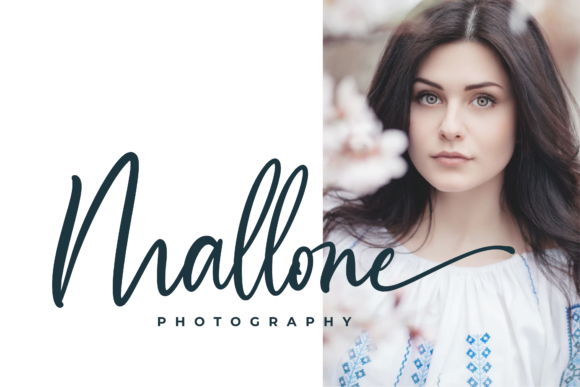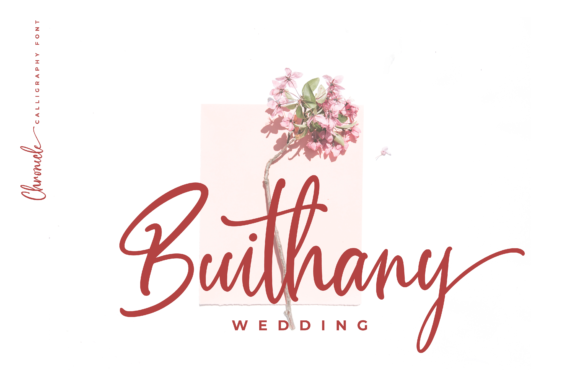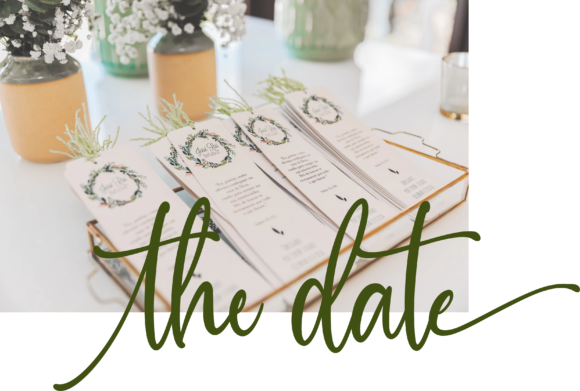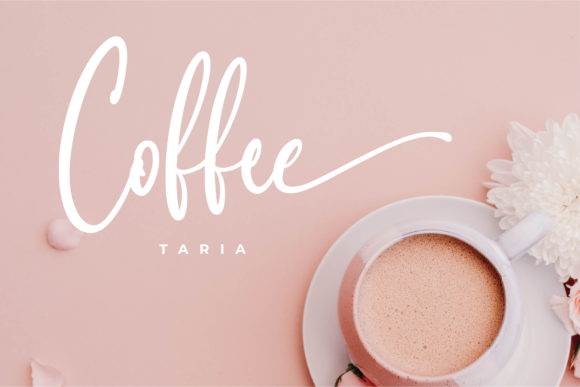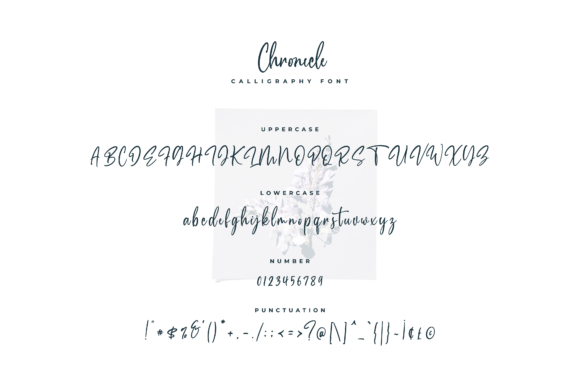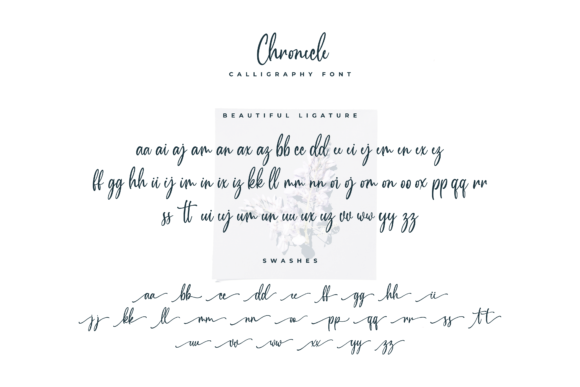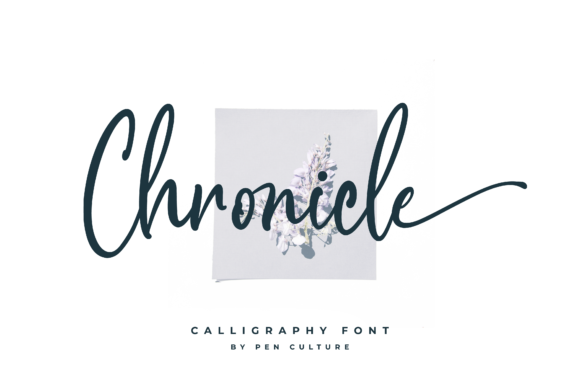
Introducing Chronicle Font: The Epitome of Modern Elegance and Classic Sophistication
In the realm of typography, few fonts manage to strike a balance between modernity and classic elegance. However, Chronicle Font achieves this delicate balance with grace, presenting itself as a versatile script font that is as modern as it is elegant, and as classic as it is sophisticated. With its wide range of applications, from stationery to branding, Chronicle Font is poised to add a touch of sophistication and beauty to your next design project.
The Essence of Chronicle Font
Chronicle Font is not just a typeface; it’s an experience. It brings to the table a unique blend of contemporary flair and timeless elegance, making it an ideal choice for designers and crafters looking to imbue their projects with a sense of luxury and refinement. Whether you’re working on a wedding invitation, a brand logo, or a packaging design, Chronicle Font promises to elevate your work to new heights of aesthetic appeal.
One of the standout features of Chronicle Font is its incredible versatility. This font is designed to adapt seamlessly to various design applications, including but not limited to:
- Stationery: Add a touch of elegance to your letterheads, greeting cards, and invitations.
- Branding: Create a lasting impression with a logo or wordmark that exudes sophistication and class.
- Packaging: Elevate your product packaging with a font that communicates luxury and quality.
- Digital Media: Enhance your website, social media posts, and digital advertisements with a font that captures attention and retains it.
Why Choose Chronicle Font?
There are numerous reasons why Chronicle Font should be your go-to choice for your typography needs:
- Elegance: It brings an unmatched level of elegance to any design, making it perfect for projects that require a sophisticated look.
- Legibility: Despite its elegant and script nature, Chronicle Font maintains a high level of legibility, ensuring your message is conveyed clearly.
- Flexibility: It can be used in a variety of contexts, from print to digital, without losing its charm.
- Timelessness: Chronicle Font has a classic appeal that won’t go out of style, ensuring your designs remain relevant for years to come.
Tips for Using Chronicle Font Effectively
To maximize the impact of Chronicle Font in your designs, consider the following tips:
- Pair it with Simplicity: Chronicle Font shines brightest when paired with simple, clean design elements. This contrast will make your design stand out.
- Experiment with Colors: While it looks stunning in black and white, don’t be afraid to experiment with colors that complement its elegance.
- Play with Sizes: Utilize different font sizes to create a hierarchy in your design, adding depth and interest.
Chronicle Font is more than just a typeface; it’s a design statement. Its unique blend of modern elegance and classic sophistication makes it an invaluable asset for designers and crafters looking to create stunning, memorable designs. Whether you’re working on a personal project or a client’s, Chronicle Font is guaranteed to add that gorgeous touch that sets your work apart. So, why settle for ordinary when you can create something truly extraordinary with Chronicle Font?
Embark on your next design journey with Chronicle Font and discover the difference it can make in elevating your creative projects to new heights of beauty and sophistication.